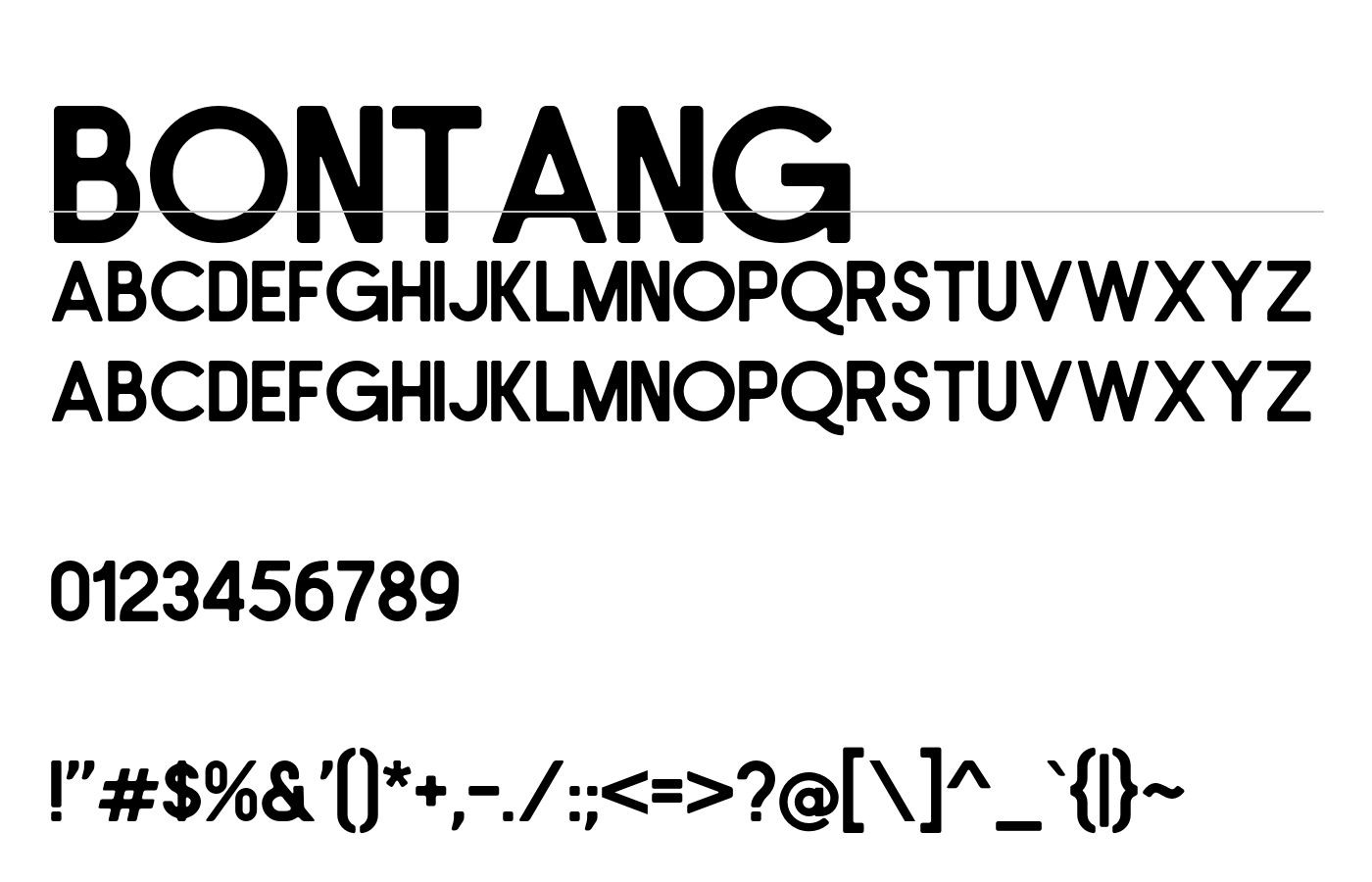
Bontang is a bold, geometric sans serif font with rounded corners that lend it a friendly and approachable feel. Its clean, uniform strokes and high x-height make it highly legible and well-suited for modern branding, headlines, and digital interfaces where clarity and a contemporary vibe are essential. This font works effectively for tech companies, startups, and casual creative projects seeking a balance of professionalism and warmth.
Bontang Font
About Bontang Font